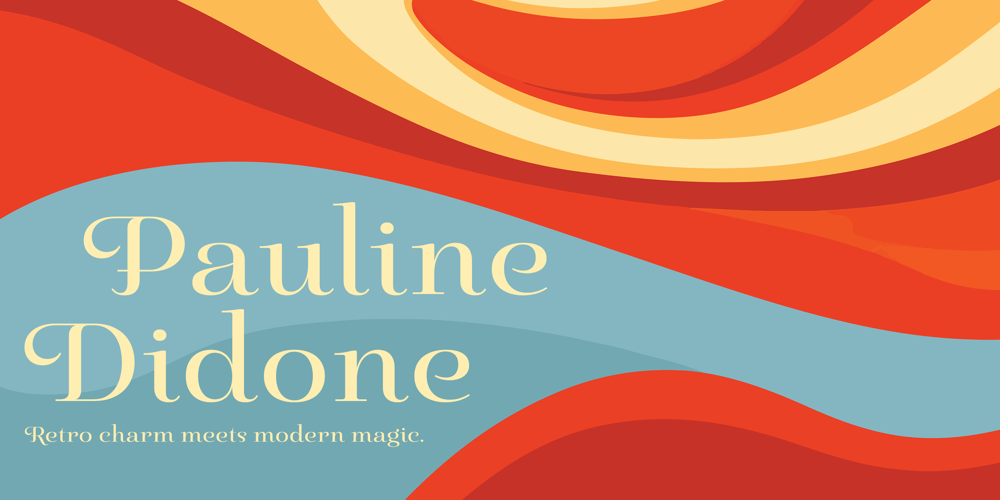
Pauline Didone Variable Font Family was designed by Jeremy Dooley and published by insigne. Pauline Didone Variable contains 2 styles and family package options. Introducing Pauline Didone Variable, a flawless blend of Art Deco elegance and contemporary script. Inheriting a splash of femininity from its lineage, Pauline, it’s the perfect choice for eye-catching logos, standout headings, and memorable snippets of copy. Dive into a 10-font family arsenal, complete with 5 distinct weights, italics, and a treasure trove of OpenType alternates.Reflecting the allure of retro scripts, its geometric silhouette, paired with bold brush contrasts, commands attention. Pauline Didone’s contemporary high-contrast design ensures your artwork isn’t just in Kansas anymore but in the vibrant world of modern design.Enhance your projects with over 150 alternate characters, including a set of whimsical ball terminals reminiscent of Toto’s playful spirit. Access these Oz-inspired elements with advanced software like the Adobe Suite or Quark. Step into a realm of enchantment with Pauline Didone and let your designs shine like the Emerald City.